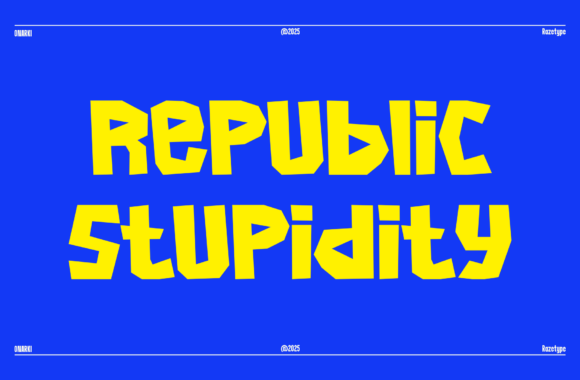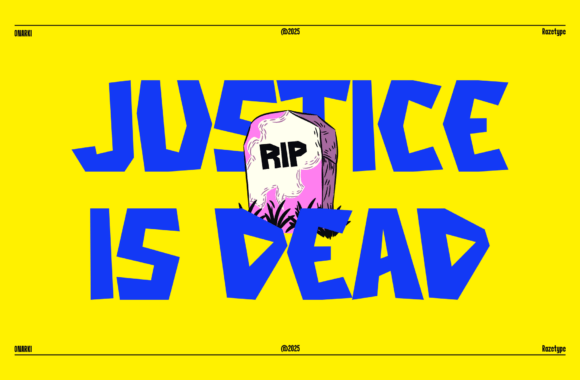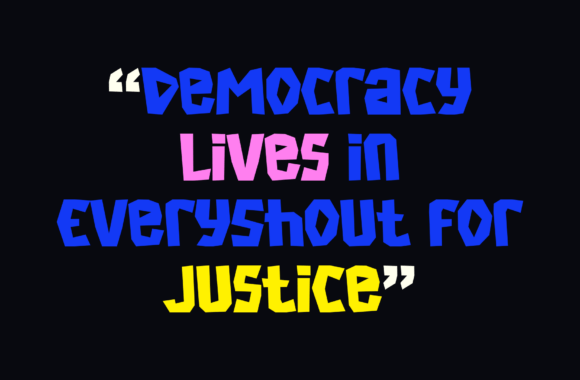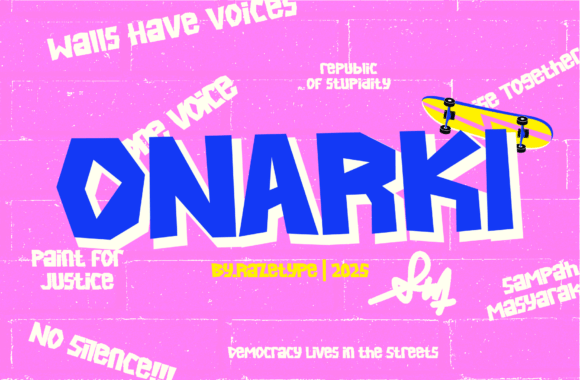
Introduction to Onarki Font
ONARKI font is a bold and expressive display typeface that captures the rebellious energy of street culture and urban art.
Unleash the energy of the urban landscape with the Onarki font, a bold, blocky typeface inspired by the raw power of street art and protest culture This Onarki typeface features sharp angles and a heavy, shadowed presence that mimics hand-cut stencils or large-scale mural lettering.
Key Features of Onarki Font
Why Choose Onarki Font?